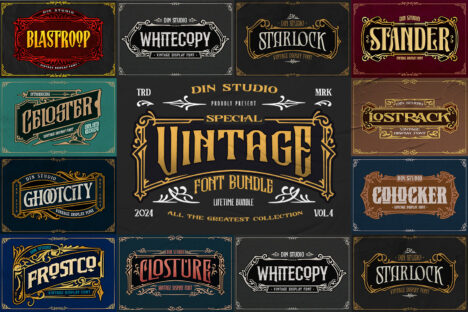
Vintage Font Bundle Vol 4
Hello, Everyone! Relive the charm of bygone eras and infuse your designs with a touch of nostalgia using the Vintage Font Bundle Vol 4.
A collection of 10 that blend nostalgic charm with modern craftsmanship. These fonts are designed to make a statement, featuring thick letterforms, vintage textures, and distinctive details that add depth and personality to any project. Create gorgeous headlines, logos, attention-grabbing titles, branding materials, editorial layouts and more with this bundle.